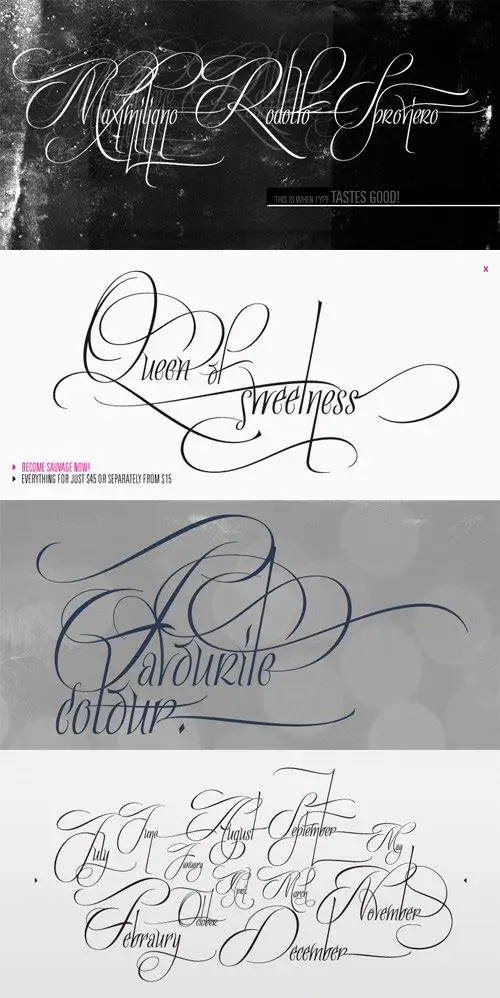
It was in the beginning of 2008 when I designed a font named Quijote, its predecessor. In the middle of 2009, I looked at it again and thought it could be a good idea to make an update of it. Variables and Features: Quijote Sauvage Pro is the most complete variable. It includes all the ligatures, alternates and swashes. It has the OpenType function in order to alternate glyphs easily when running applications which support this. The font is also offered separately. Quijote Sauvage Standard has the right glyphs to get an equilibrium between wildness and softness. It includes standard and discretionary ligatures. Quijote Sauvage Stylistic has the sharpest glyphs. Its decorative traces are discreet in order not to have problems as regards legibility. Its upper case are less wild than the other variables. Quijote Sauvage Text is the most discreet of its partners. This one was thought in order to improve legibility. Its ascenders and descenders are shorter, so the words are easier to read in small sizes. Quijote Sauvage Contextual, Swash and Titling, are the ones with wonderful terminals. They decorate words, adding a wonderful look of wildness or passion.